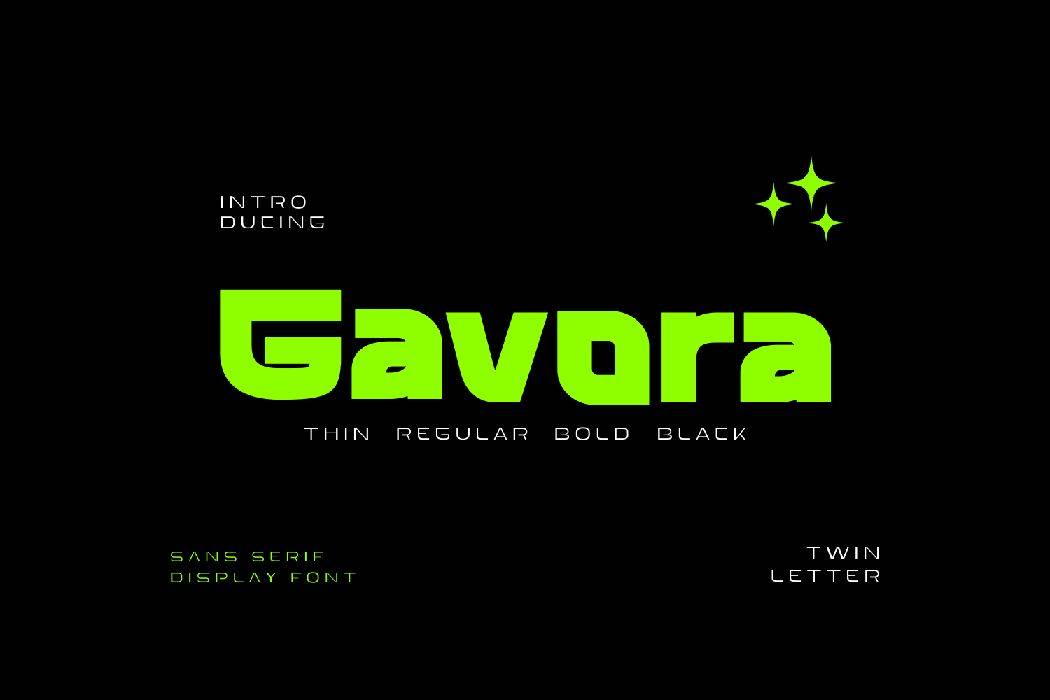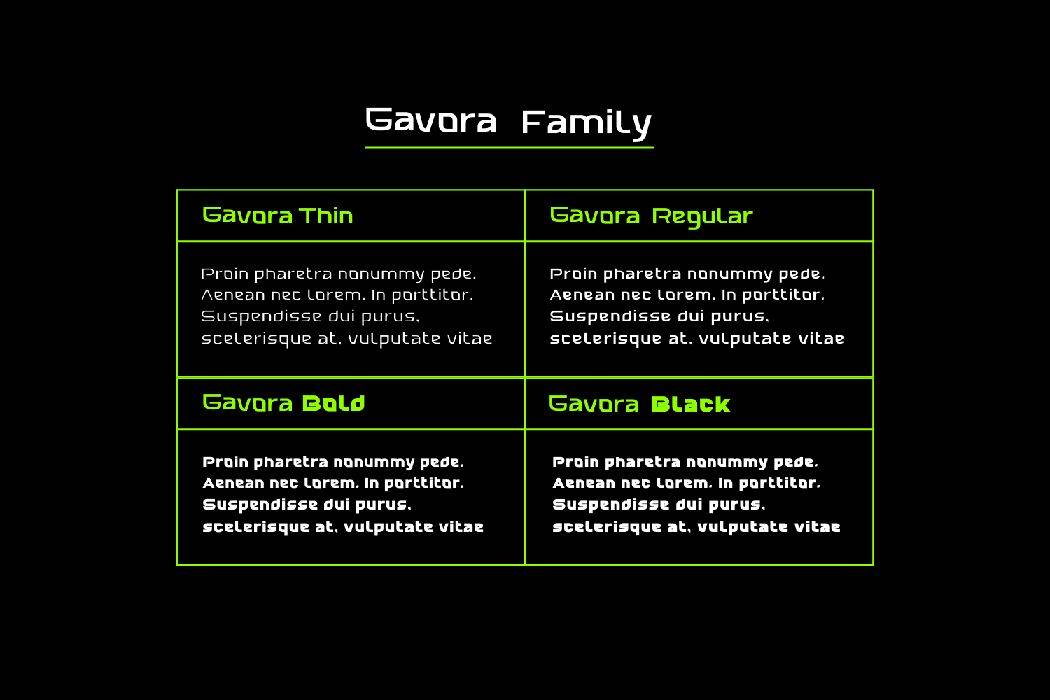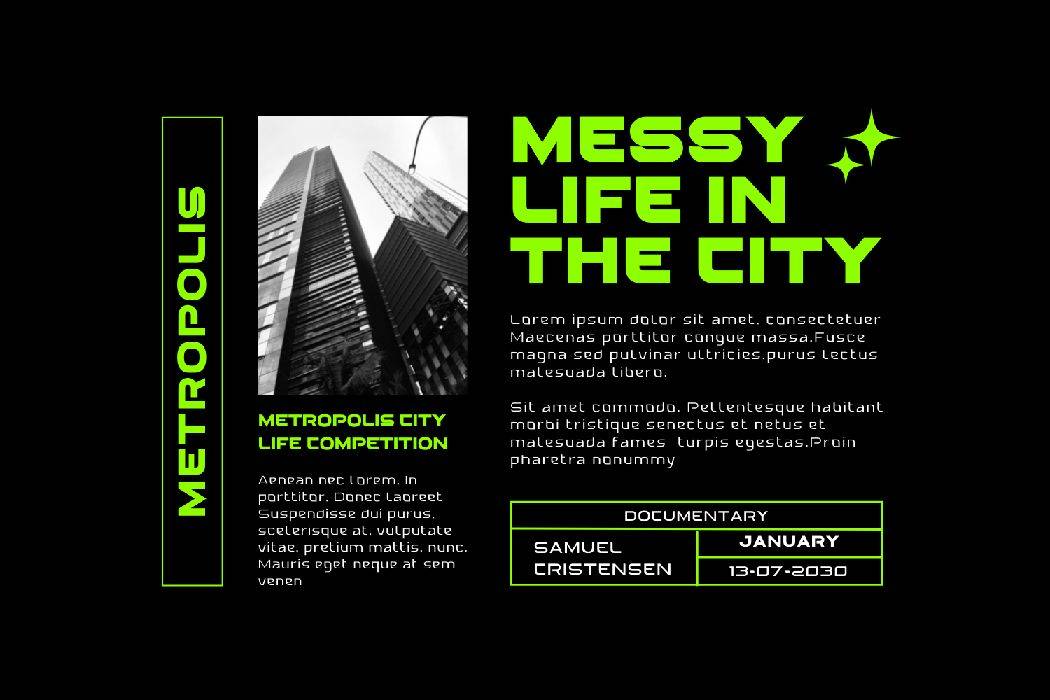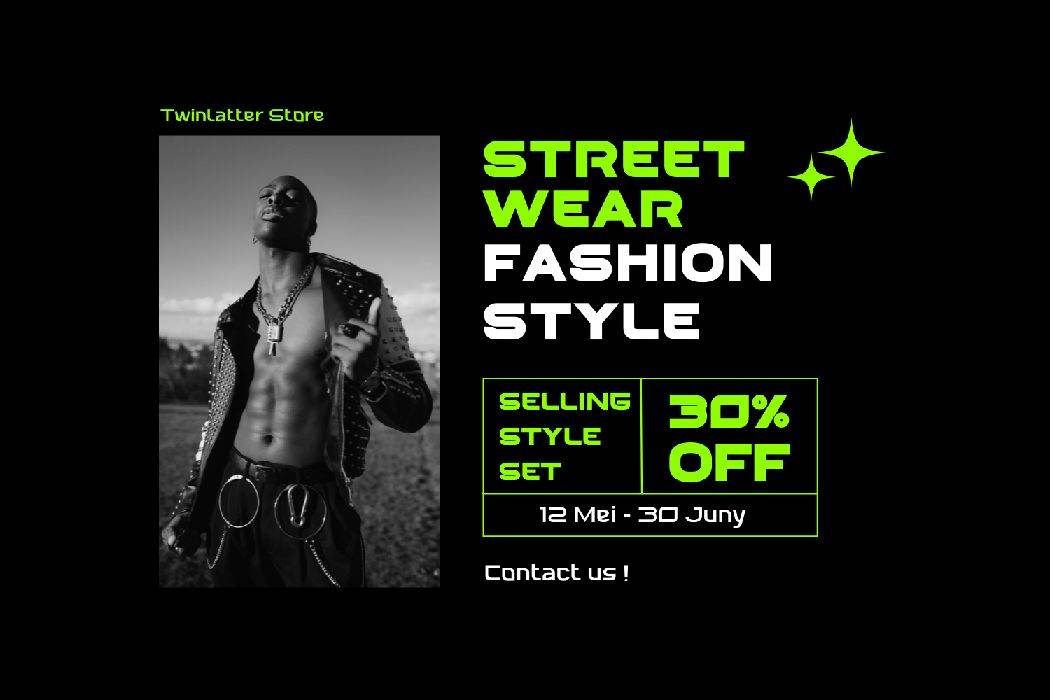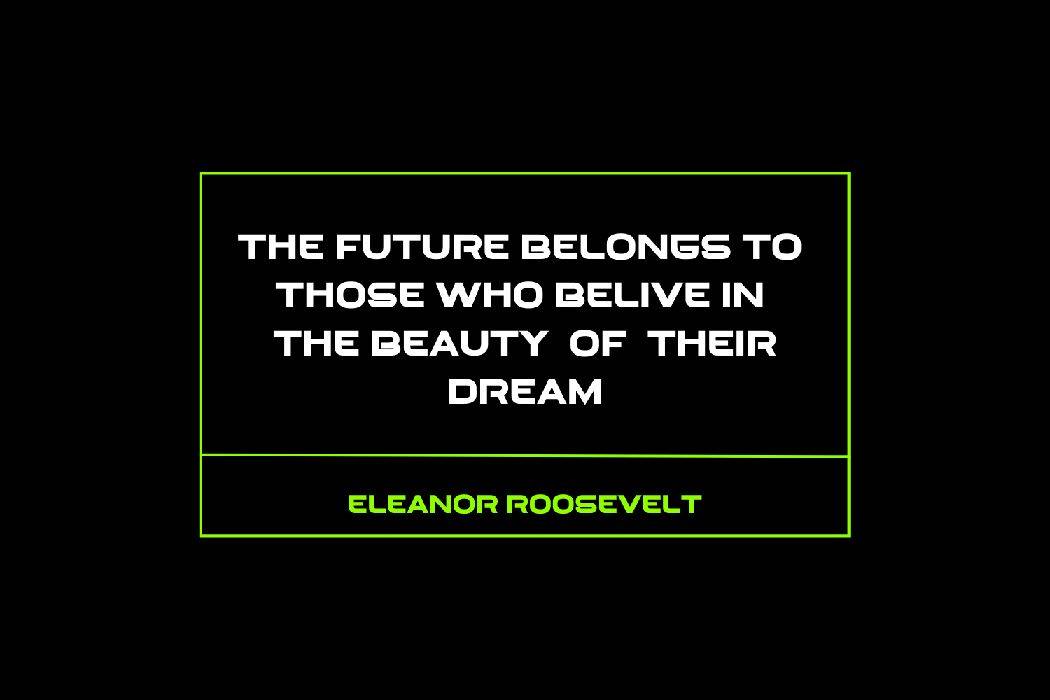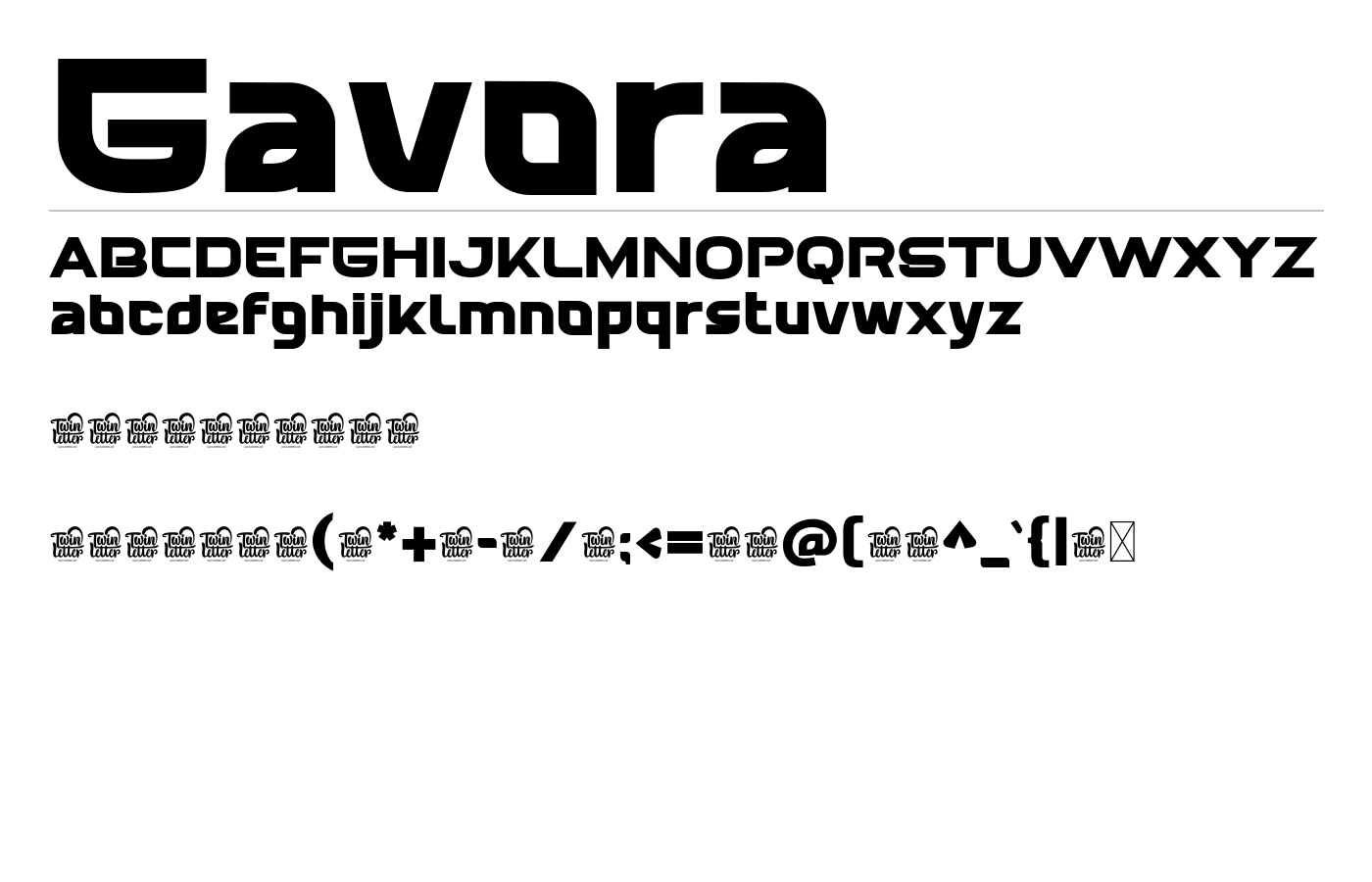
Gavora is a bold, modern sans serif with a strong, geometric structure and clean, solid shapes that create a powerful presence. Its high x-height and sharp angles make it highly legible, perfect for headlines, logos, and branding that seek a contemporary, impactful look. This font works well for designers aiming to communicate confidence and modernity in editorial, advertising, and digital projects.
Gavora Font
About Gavora Font
| Font family | Gavora Font |
| Designer | hakim |